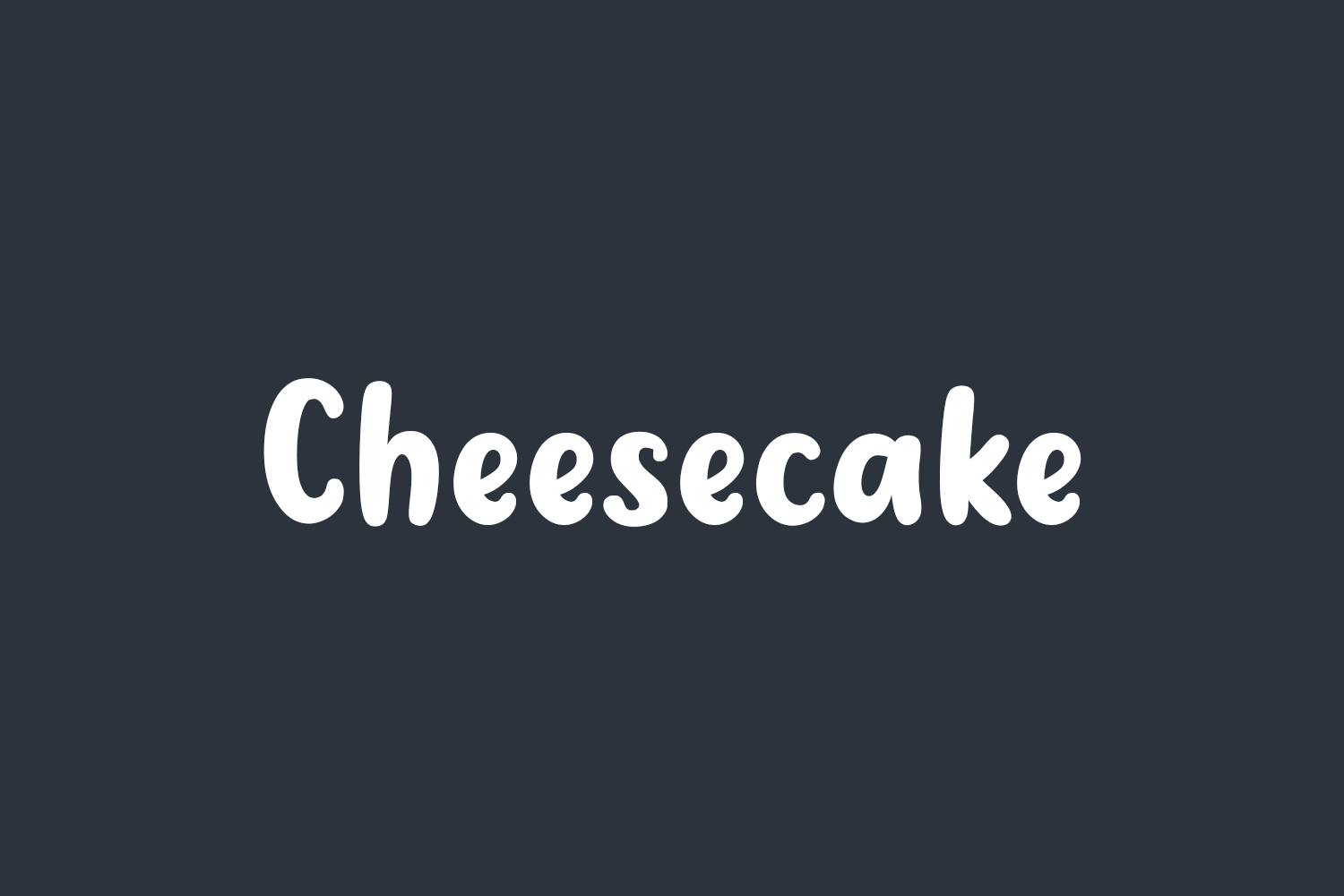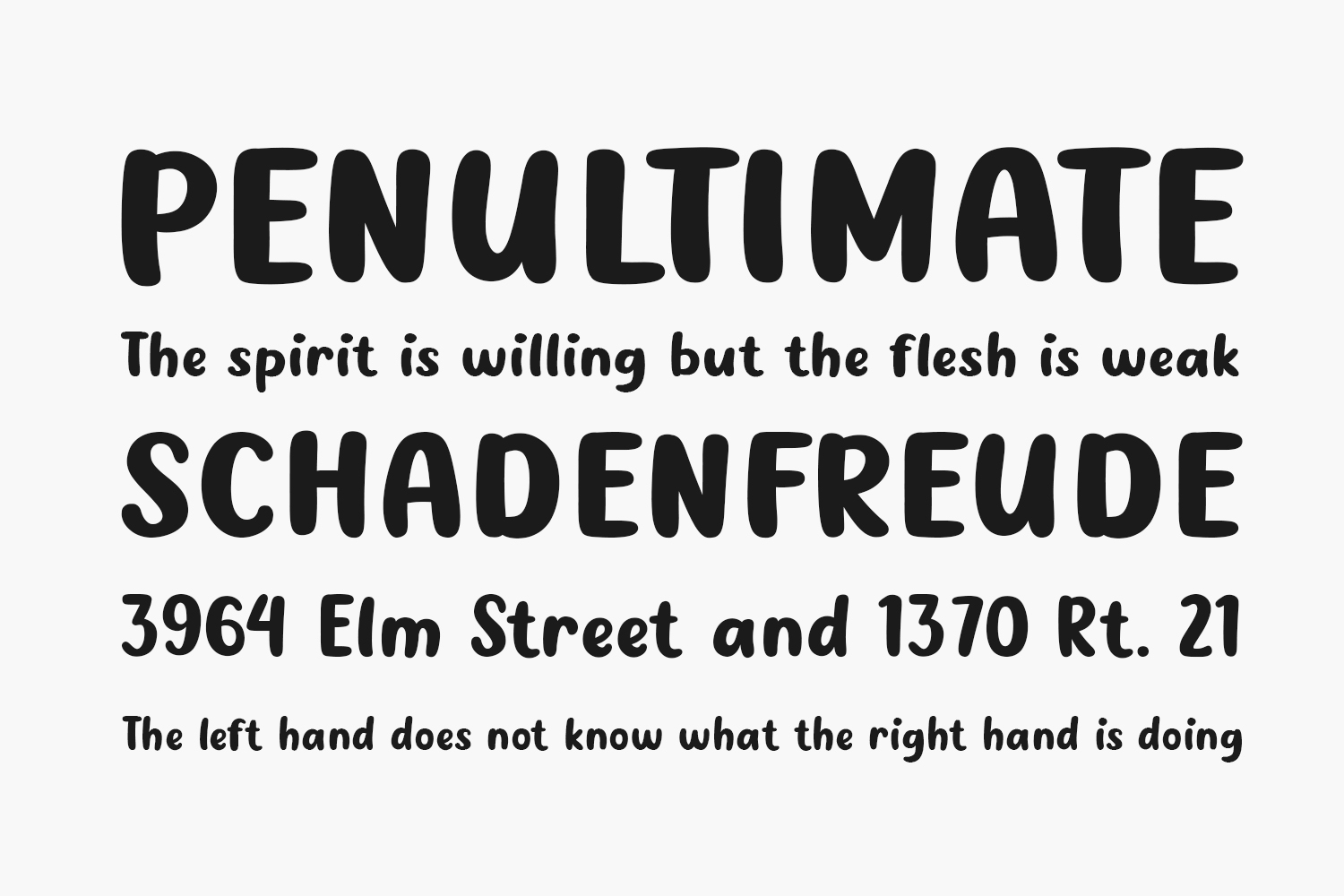
Discover the delightful world of Cheesecake Free Font a captivating and whimsical handwritten font that exudes an air of cuteness, friendliness, and pure fun. This font effortlessly captures the essence of playfulness and authenticity, making it an ideal selection for a wide range of children’s activities and school projects.
Whether you’re working on a creative endeavor aimed at young ones or seeking a font that brings a touch of cheerfulness to educational materials, “Cheesecake” is the ultimate choice. Its endearing style is guaranteed to captivate the hearts of both children and adults alike, making any project a memorable and enjoyable experience.
Unleash your imagination with “Cheesecake” and let its charm and vibrant energy elevate your designs. Embrace the whimsy and authenticity that this font embodies, and watch as it transforms your children-focused endeavors into captivating works of art. Cheesecake Free Font is free for personal use only. Please purchase the full version for commercial use.
Designed by Kurnia Setyadi